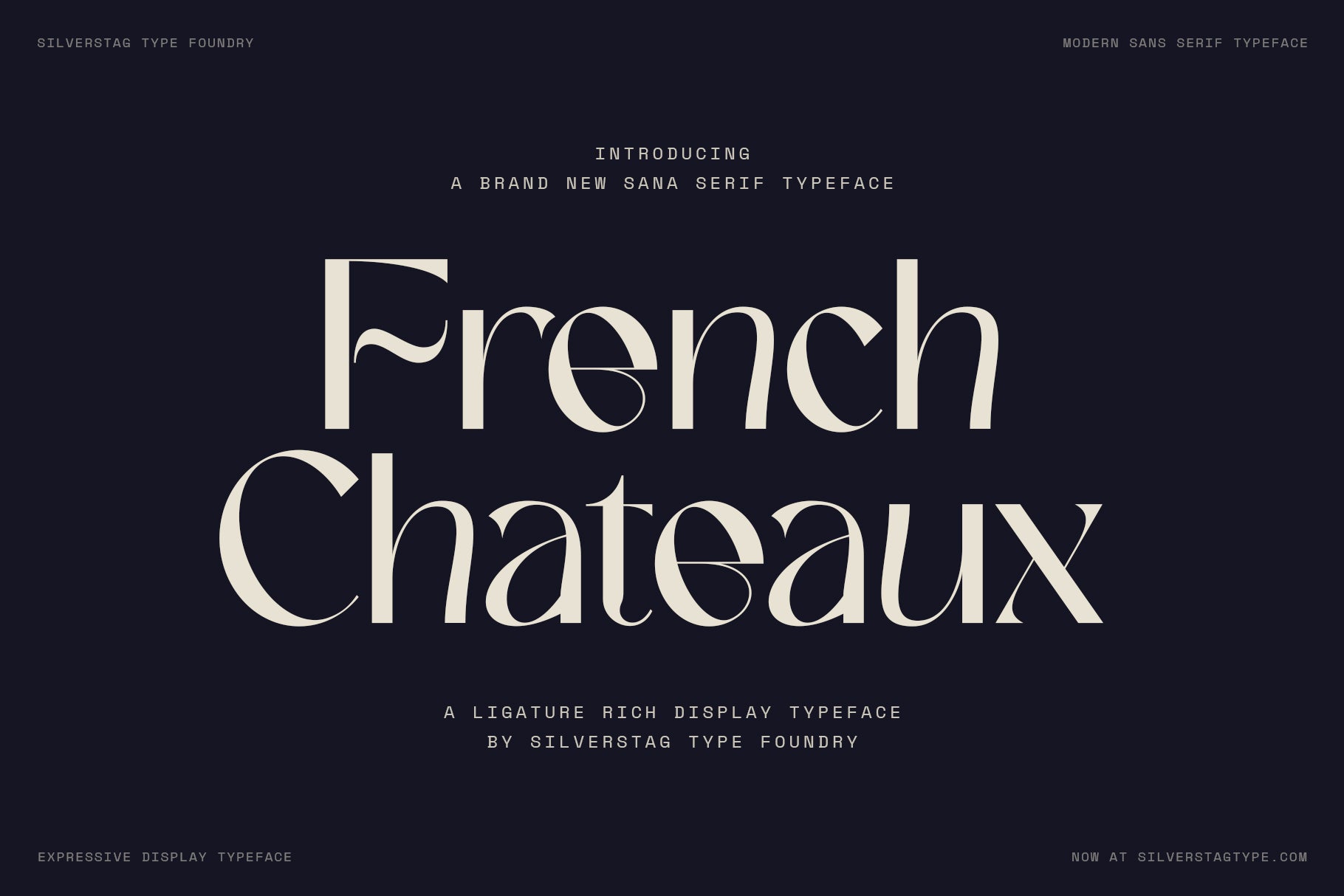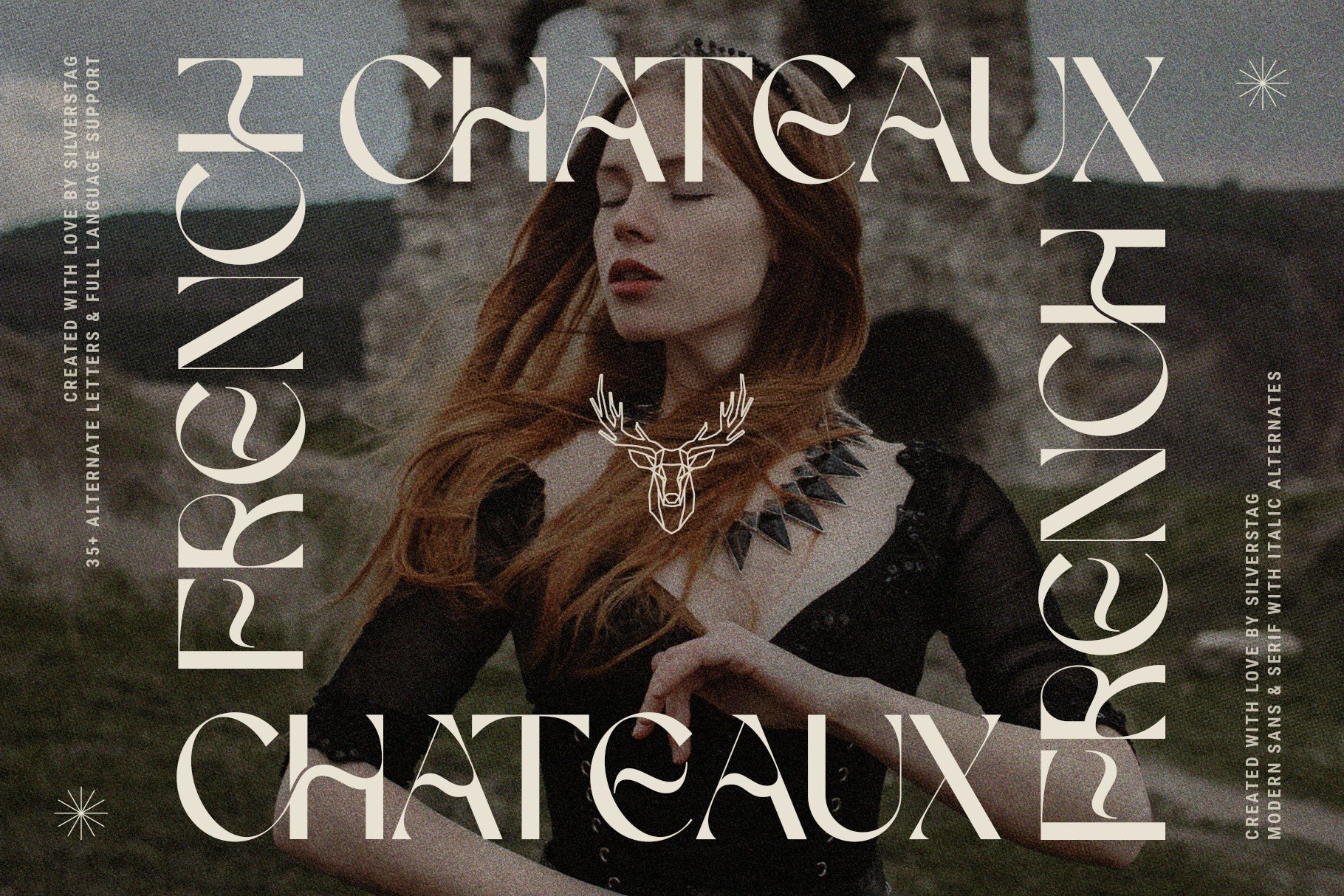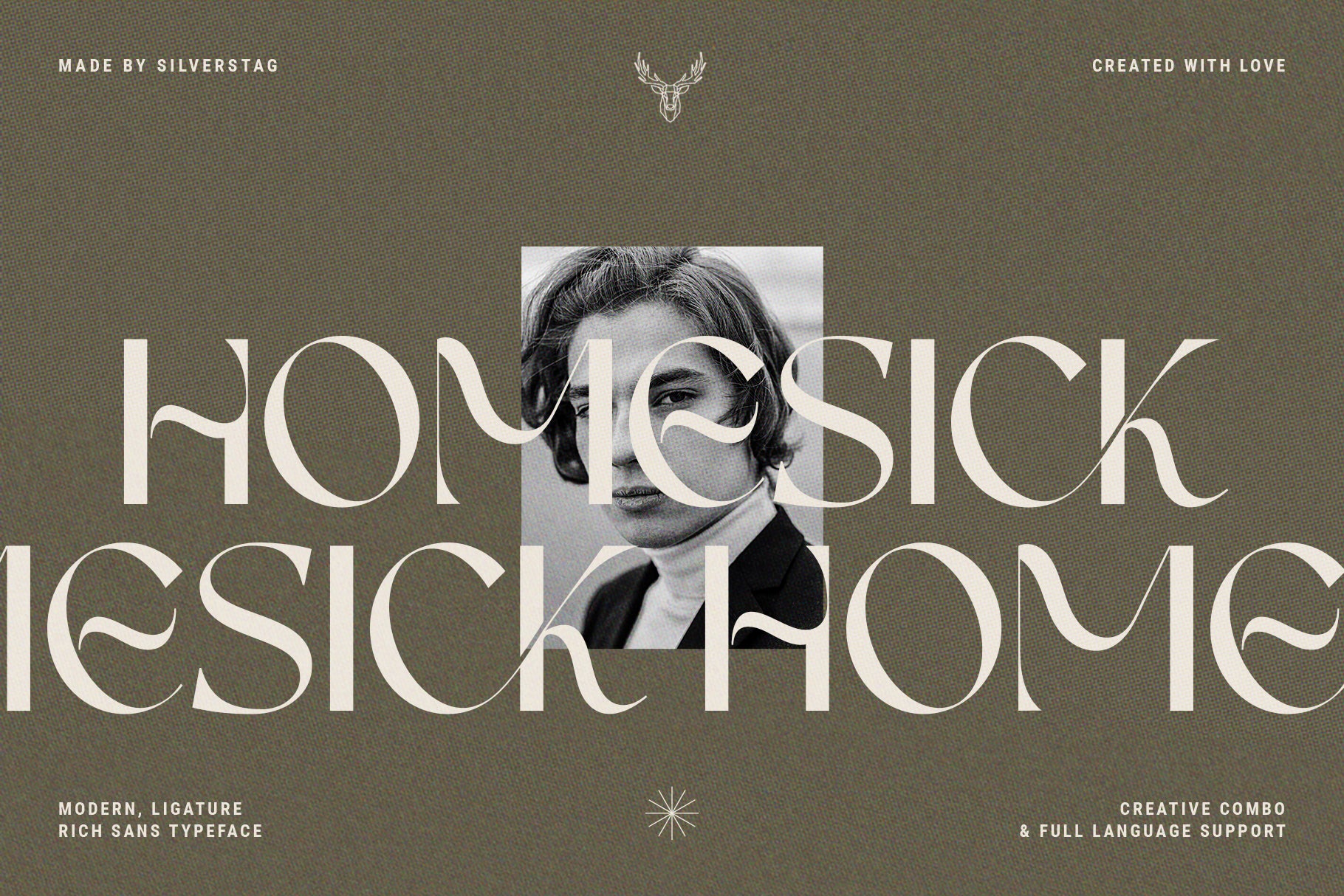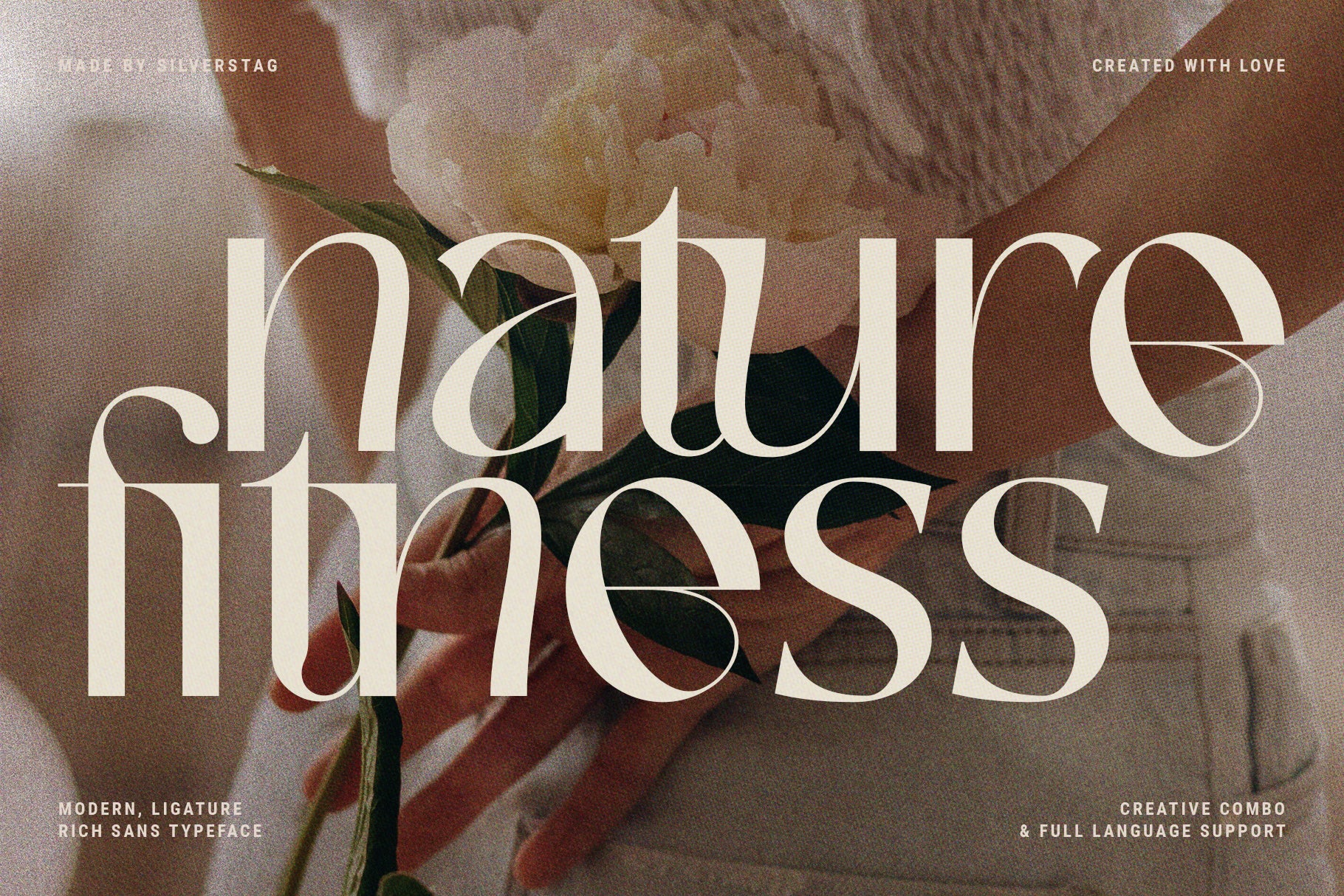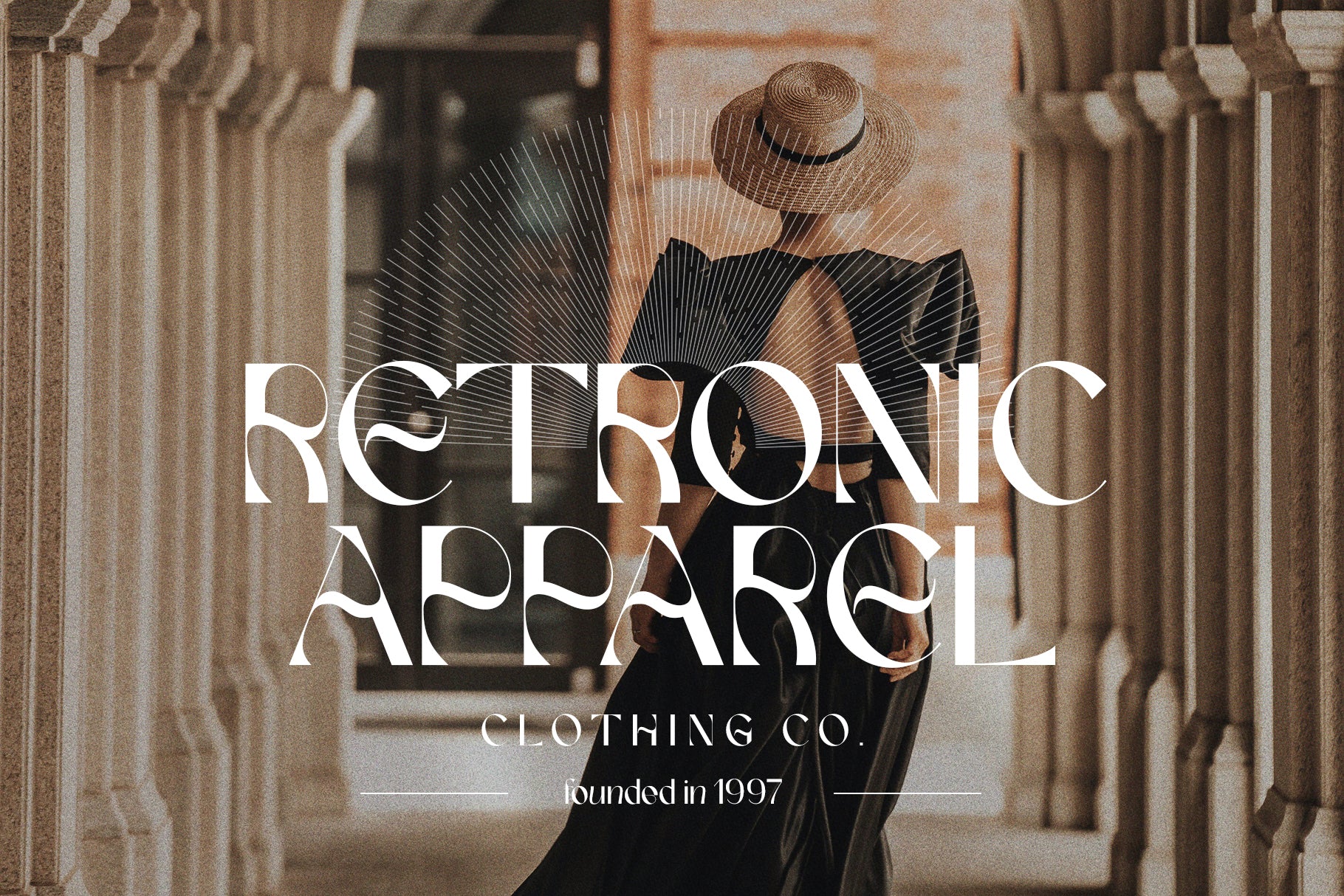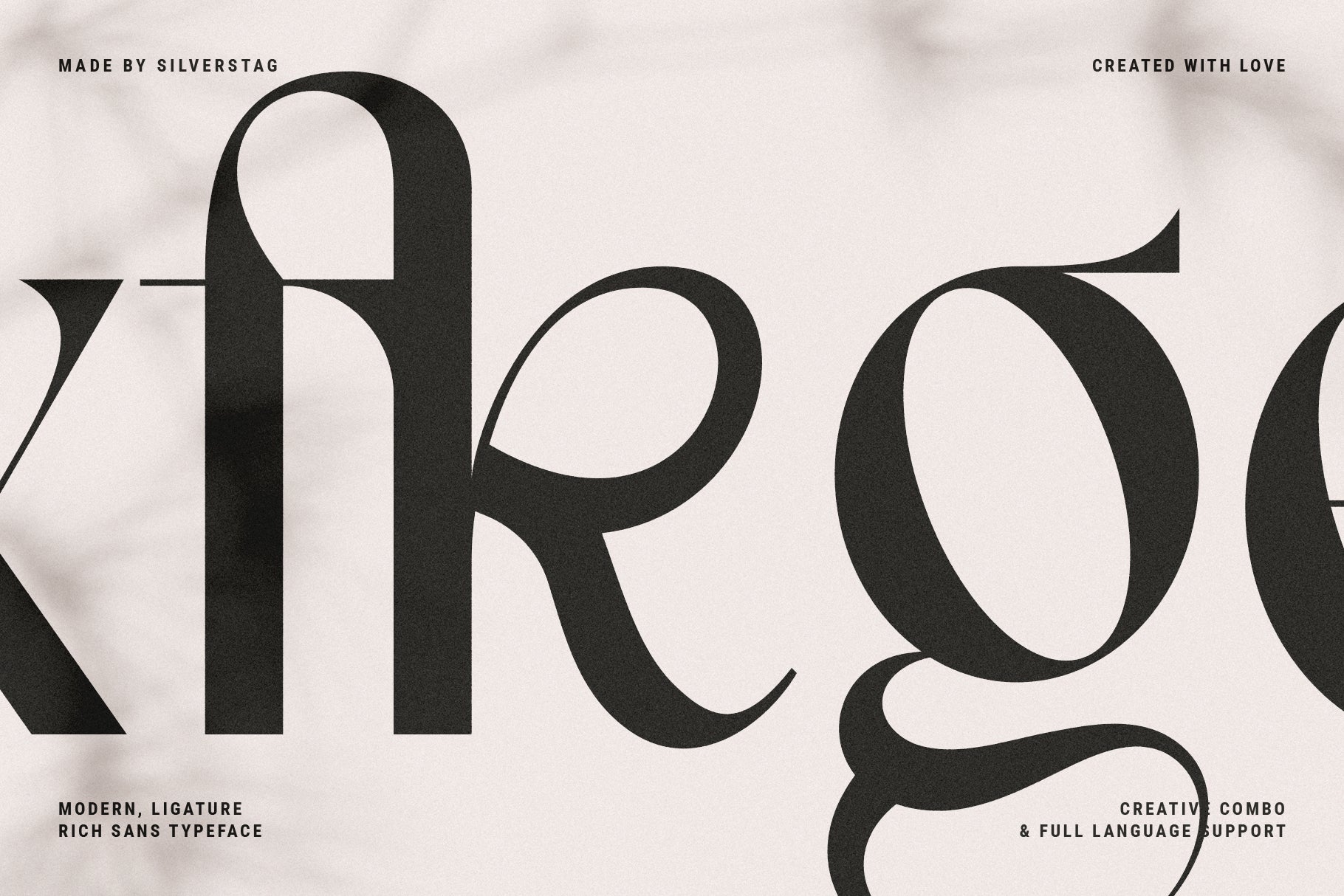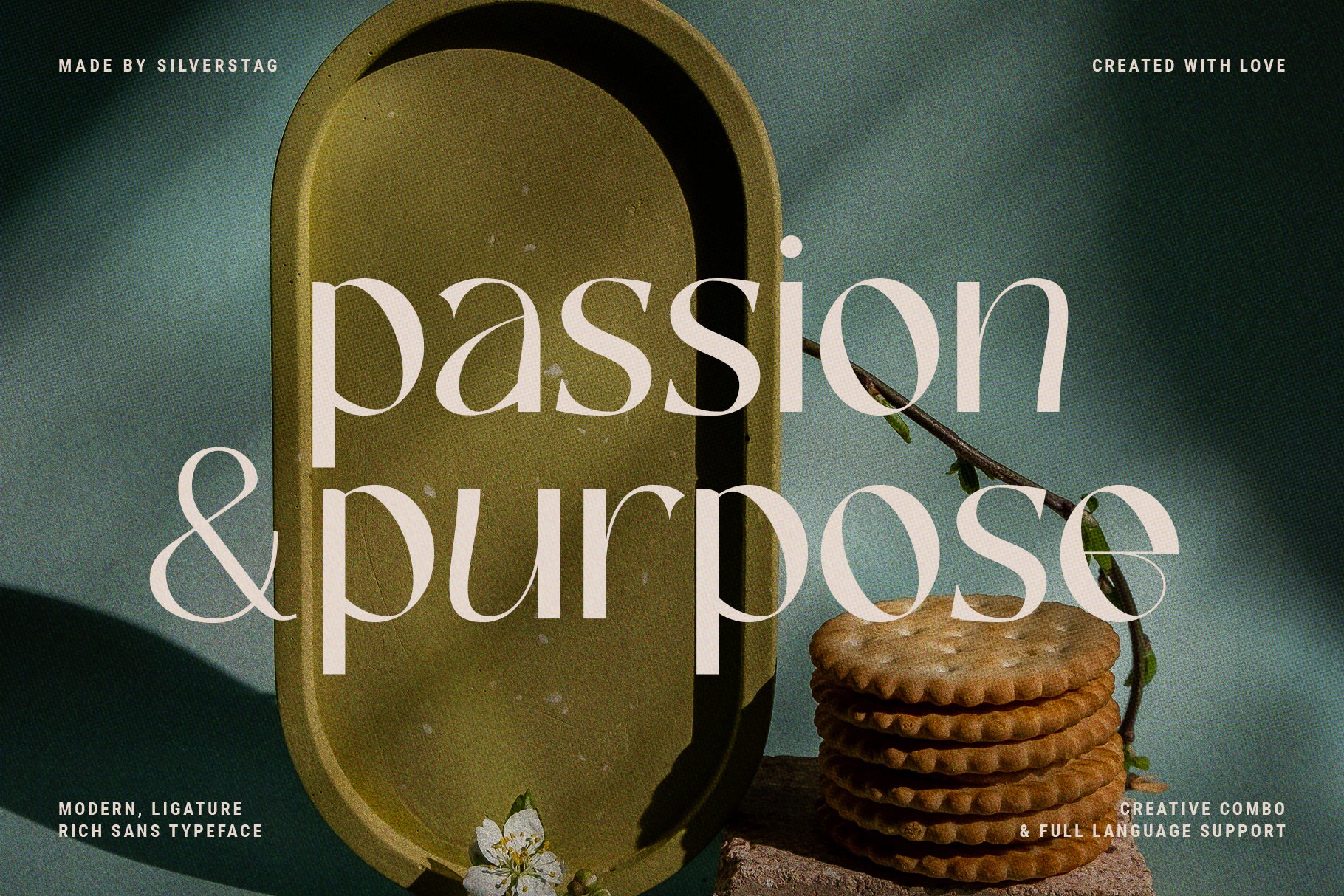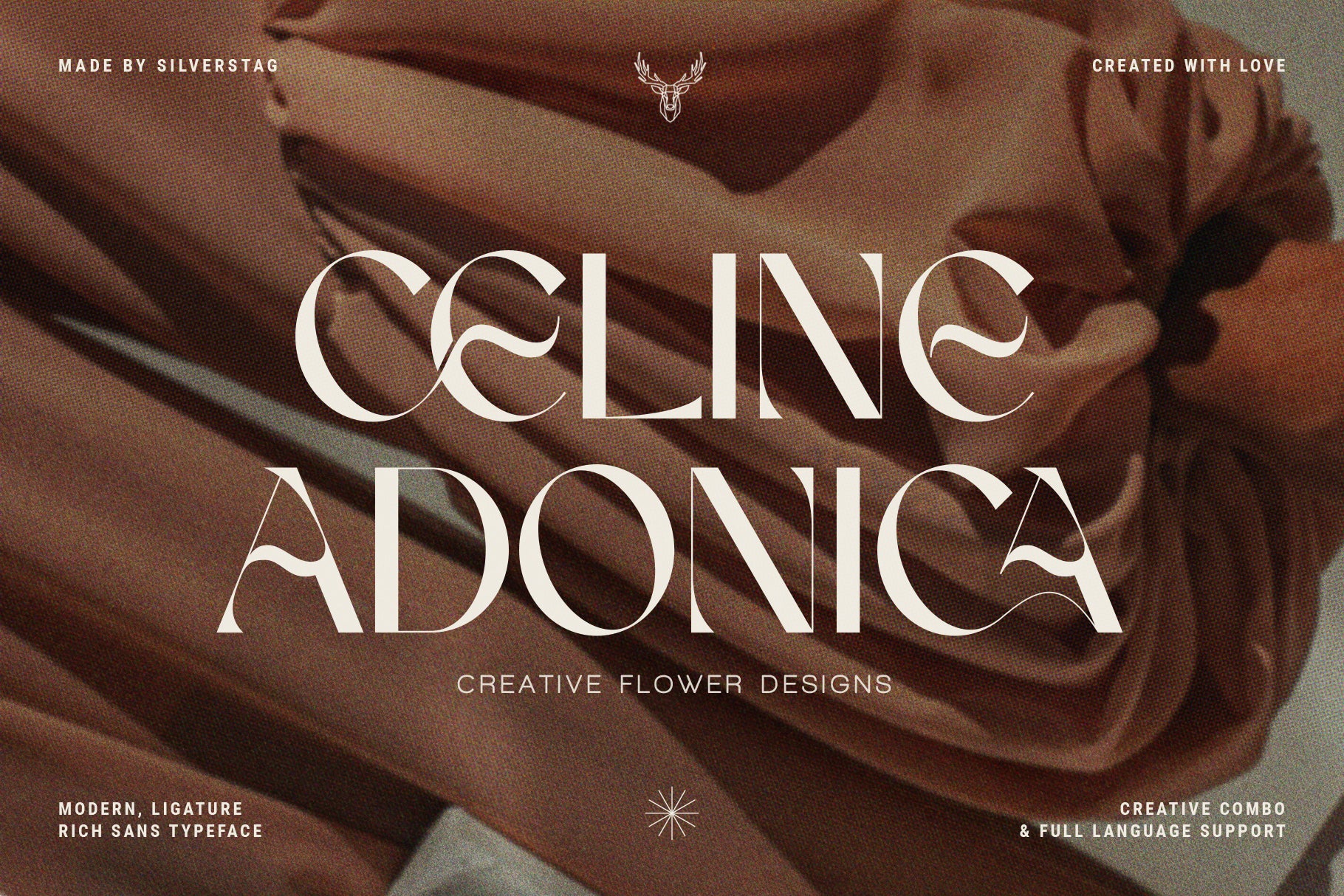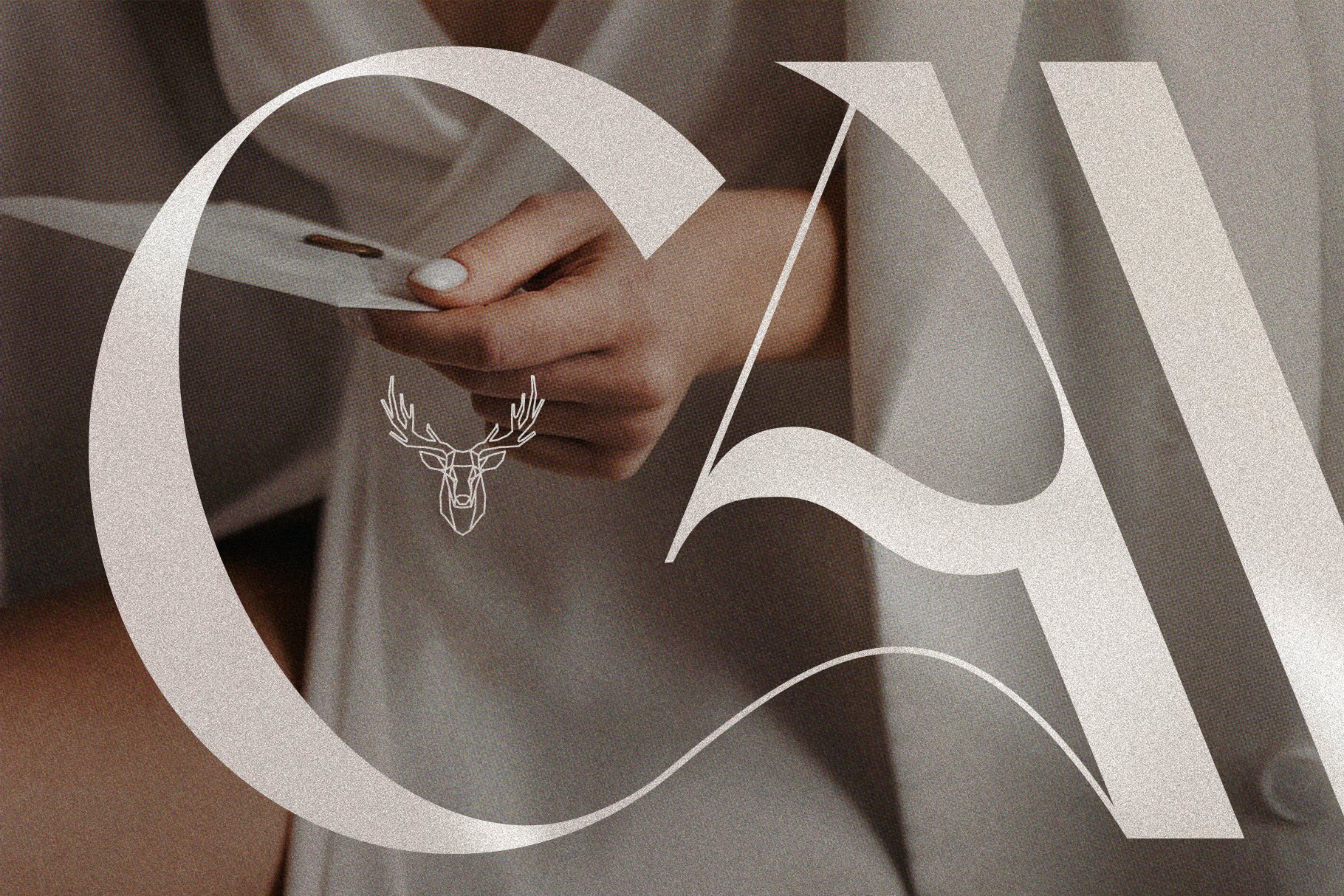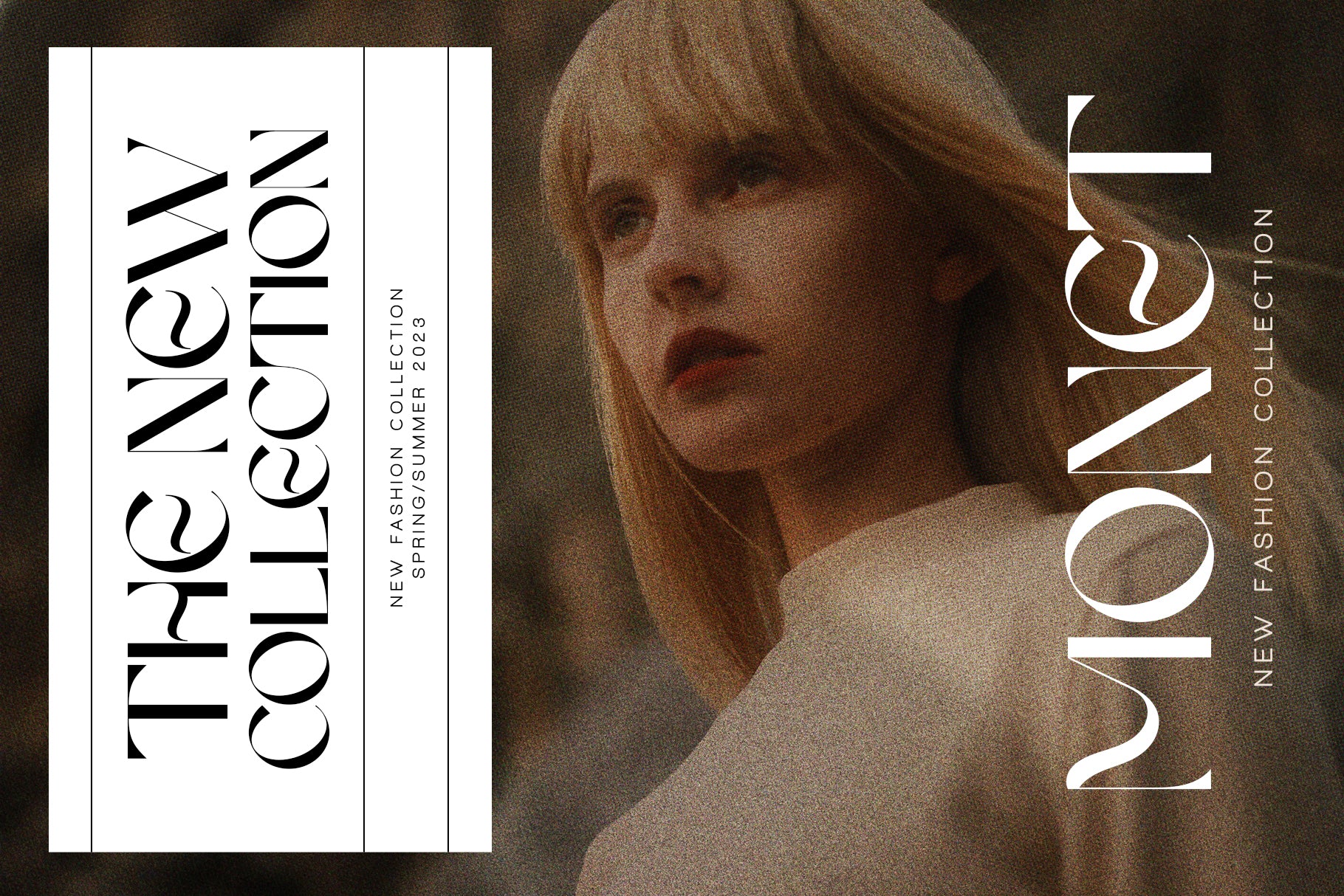
FRENCH CHATEAUX is a refined and fashion-forward display font inspired by the timeless beauty of French architecture, vintage signage, and the effortlessly elegant French lifestyle. With its bold contrast, smooth curves, and elevated detail, this typeface brings a chic, modern appeal to every design it touches.
Crafted with style and sophistication in mind, FRENCH CHATEAUX includes over 35 custom ligatures, adding fluidity and flair to your typography. Whether you’re designing luxury logos, fashion branding, editorial headlines, packaging, or social media graphics, this font delivers a curated, high-end feel with just the right amount of personality.
Balancing modern geometry with classical touches, the typeface evokes a sense of heritage reimagined for today’s aesthetics. It also comes with full language support, punctuation, numerals, and easy-to-follow instructions on how to use alternate glyphs and ligatures in most desktop design programs and Canva.
FRENCH CHATEAUX is ideal for designers who want to infuse their work with a touch of romance, a nod to heritage, and a whole lot of style. Elegant yet playful, structured yet expressive—it’s the kind of typeface that makes an impression without ever trying too hard.